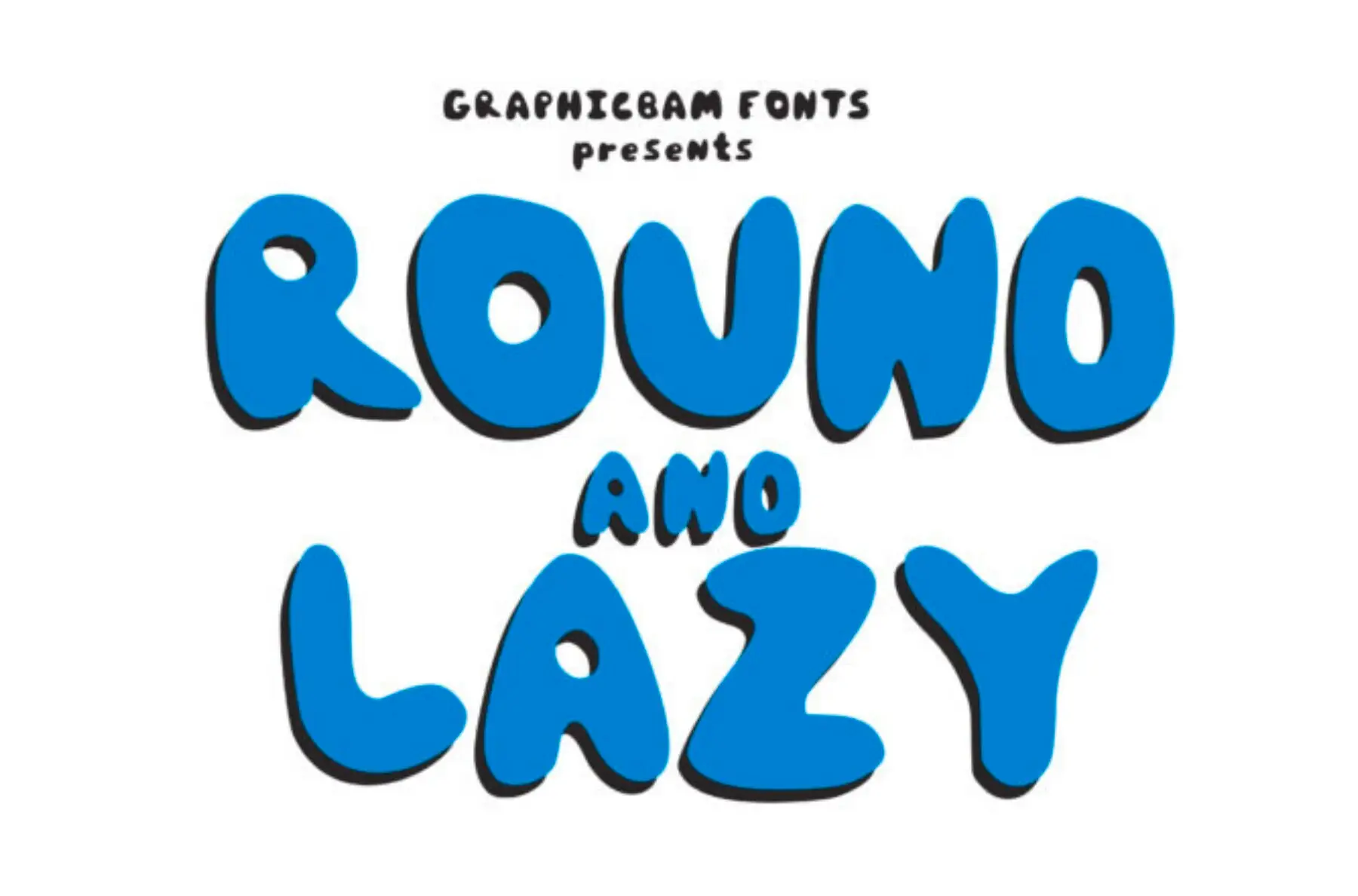
Round and Lazy Font
Delve into creativity with Round and Lazy, a display font designed to bring fun and authenticity to your projects. Its thick, rounded characters exude a charming playfulness, making it ideal for children's activities, school assignments, and any project that calls for a touch of whimsy.Round and Lazy: A Playful Display Font